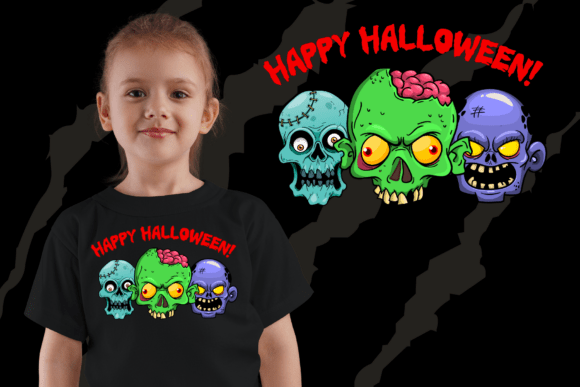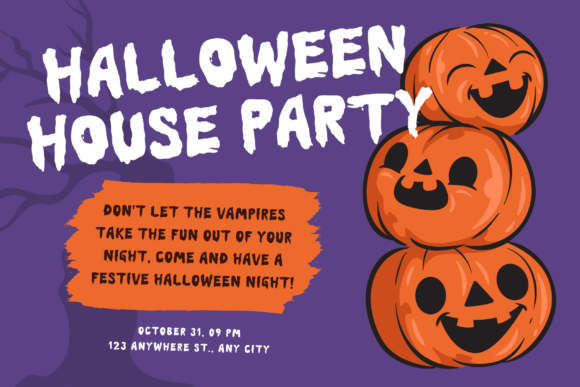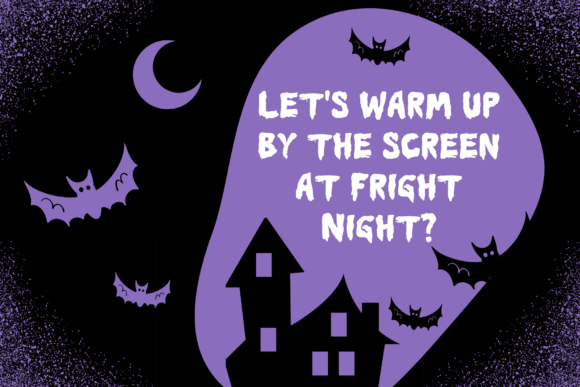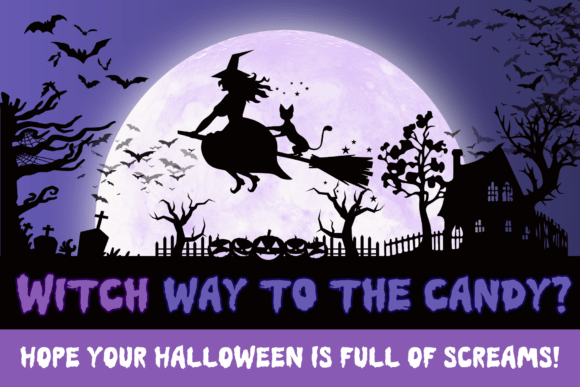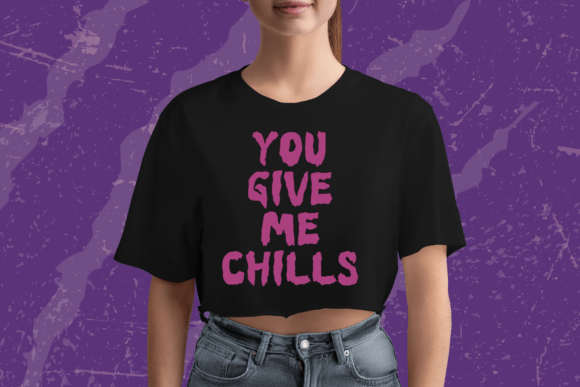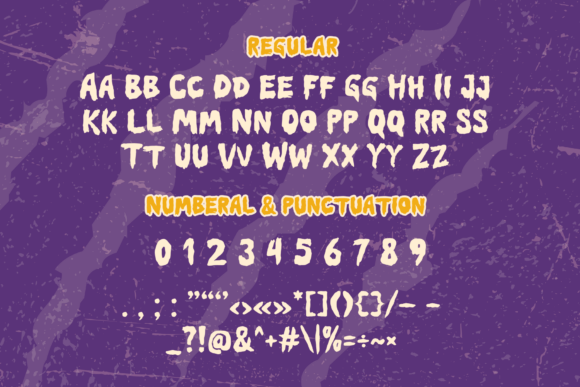
Introduction to Horror Evil Font Font
Fonts play a crucial role in design, and the Horror Evil Font font is a typeface that brings both character and versatility to any project. Whether you’re working on a branding project, a website, or a print design, the Horror Evil Font font offers a unique style that can elevate your work.
Horror Evil is a chilling display font designed to evoke fear and tension.
With jagged edges, irregular shapes, and a sinister style, itβs perfect for posters, Halloween themes, and thriller titles This typeface delivers a haunting atmosphere that instantly grabs attention and sets a dark tone.
Key Features of Horror Evil Font Font
Why Choose Horror Evil Font Font?
The Horror Evil Font font is more than just a typeface β it’s a design tool that helps you communicate your message with style and clarity. Its unique character set and versatile design make it suitable for a wide range of applications, from elegant invitations to bold headlines.
With its carefully crafted letterforms and balanced proportions, the Horror Evil Font font ensures readability and visual appeal across all mediums.
What makes Horror Evil Font font special?
The Horror Evil Font font stands out with its unique design, exceptional readability, and versatility across various design applications.